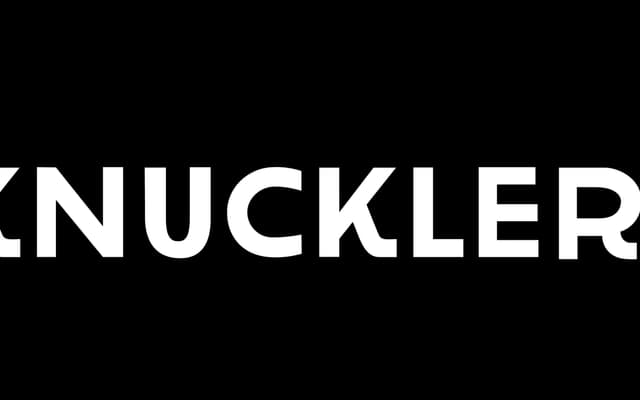
An all-caps hand-lettered display face evoking school notebook doodles, with a stencil alternate style and decorative catchwords, arrows and manicules.
Knuckler draws on the rough, imperfect quality of hand-drawn notebook lettering, kept deliberately casual in its stroke weight and construction. The capitals double as an alt stencil cut, adding a second visual register without a separate font file. Script catchwords, arrows and manicules are included to support hand-crafted editorial and packaging layouts.
An all-caps hand-rendered display face with stencil alternates and decorative catchwords; clearly intended for expressive, informal display use rather than text setting.